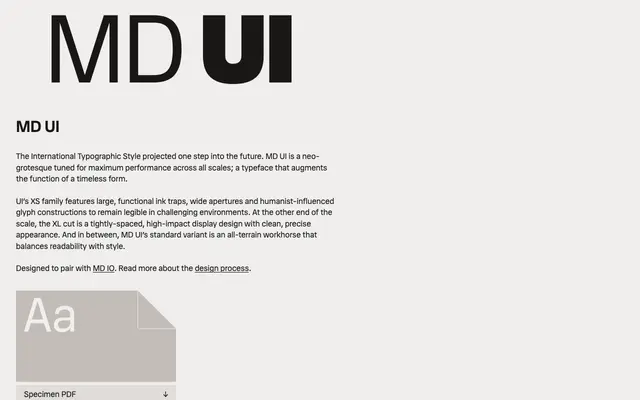
A neo-grotesque optimised across three optical cuts for everything from screen UI text to high-impact display work.
Three optical variants handle distinct jobs: the XS cut uses prominent ink traps, wide apertures and humanist glyph constructions to stay legible at small sizes and in degraded environments; the XL cut is tightly spaced and precision-drawn for display use; and the standard variant sits between them as an all-purpose workhorse. Each cut runs the full weight range from Thin to Ultra with matching italics, giving 48 styles in total. Designed as a companion to MD IO and rooted in the International Typographic Style.
MD UI is positioned explicitly within the International Typographic Style tradition, making it a neo-grotesque; humanist-influenced glyph construction in the XS cut adds warmth but the overall framework is firmly neo-grotesque.